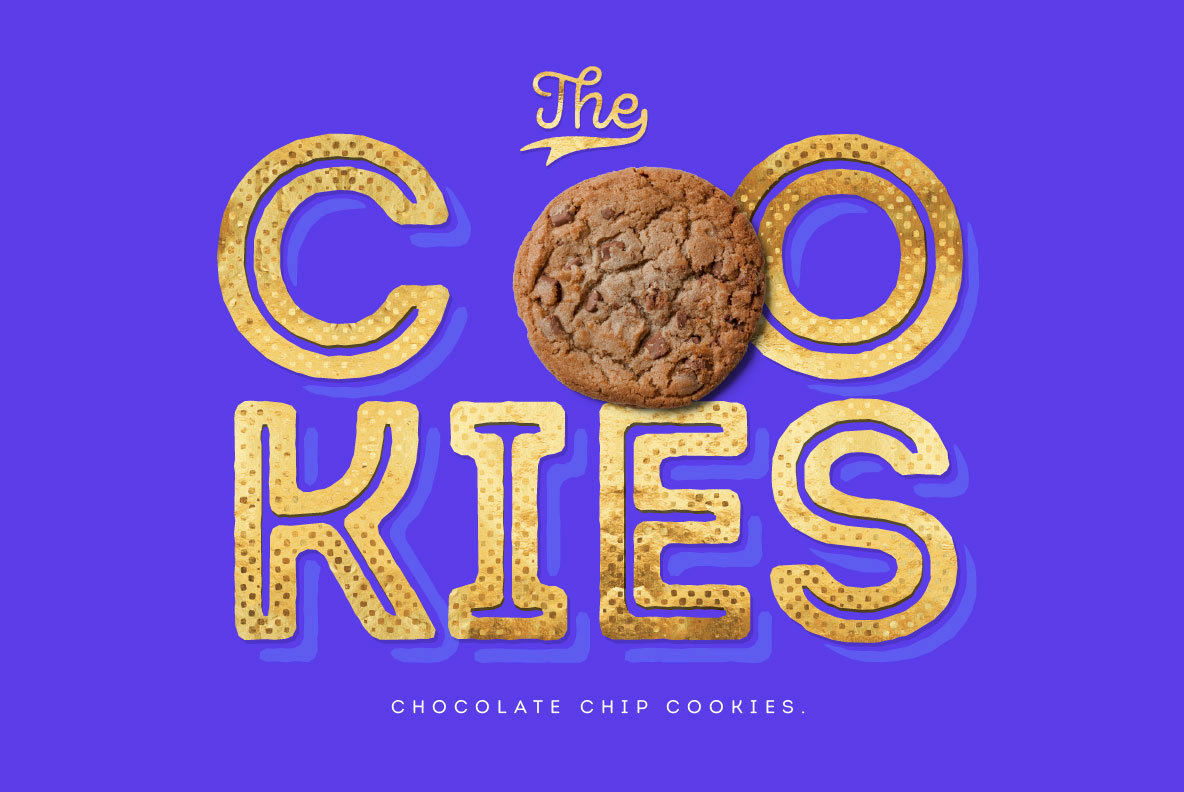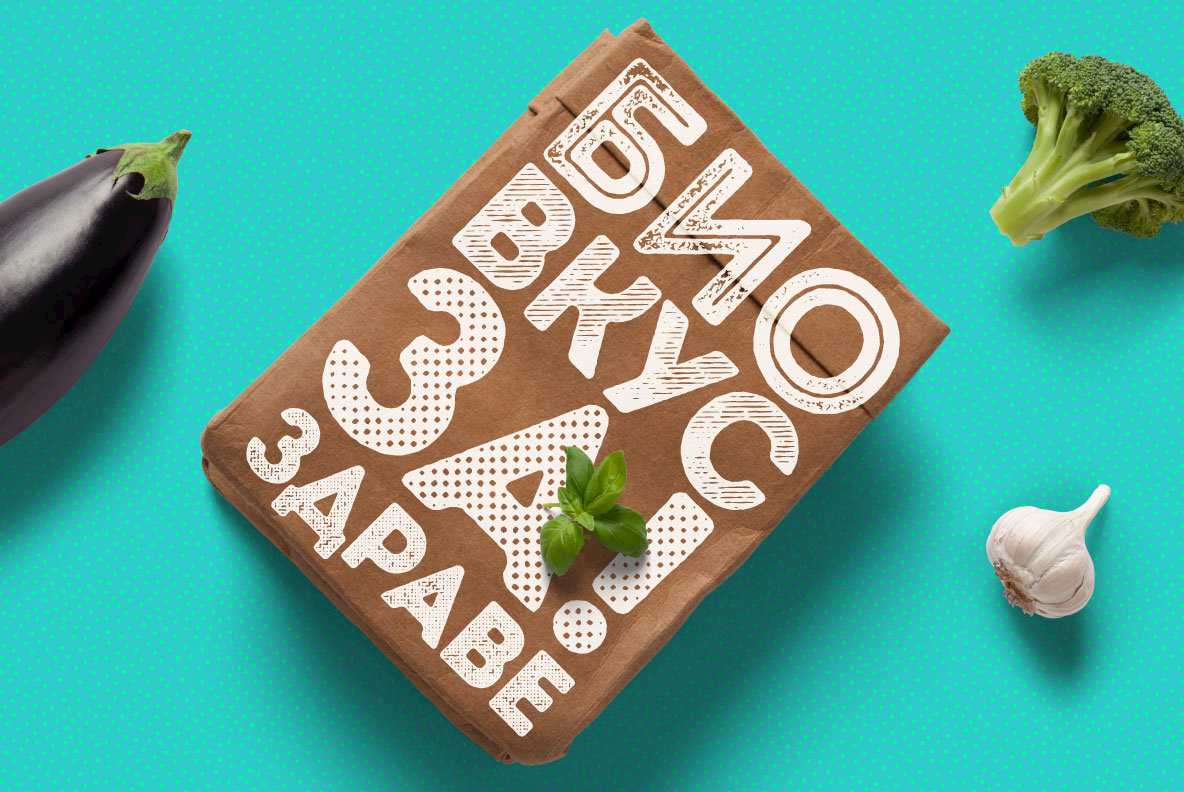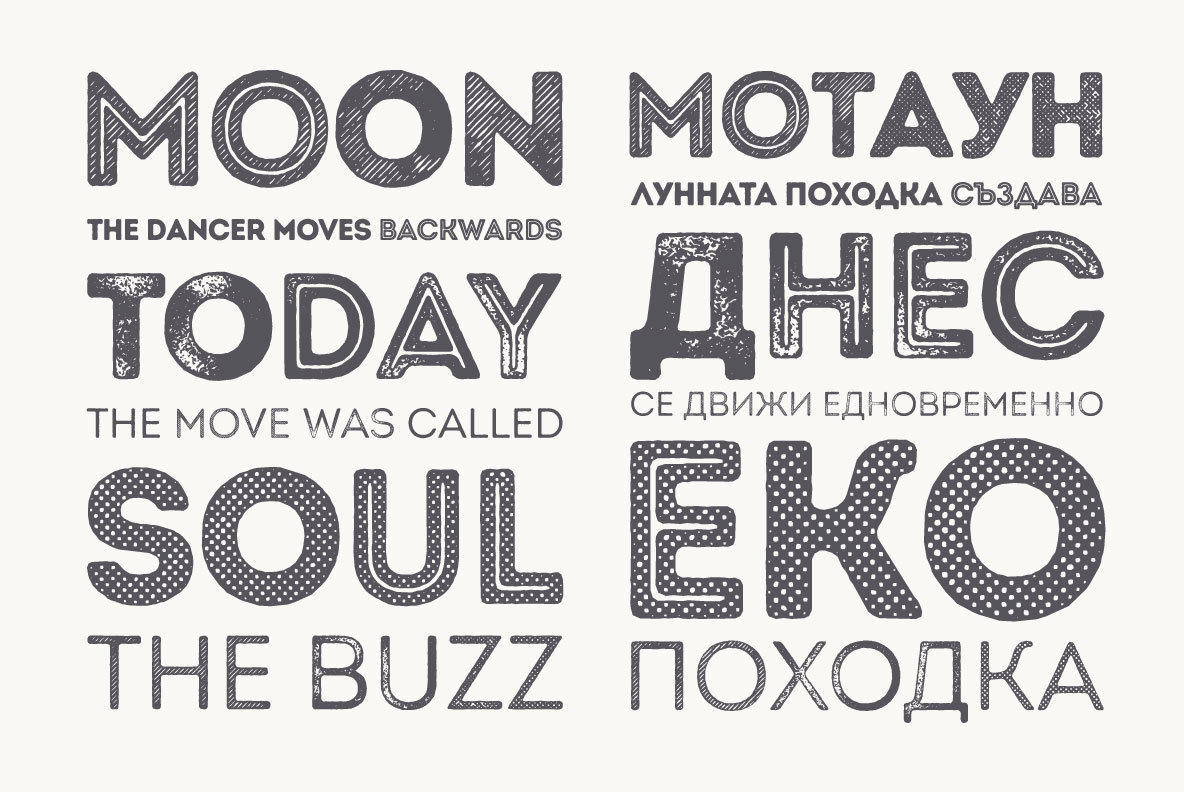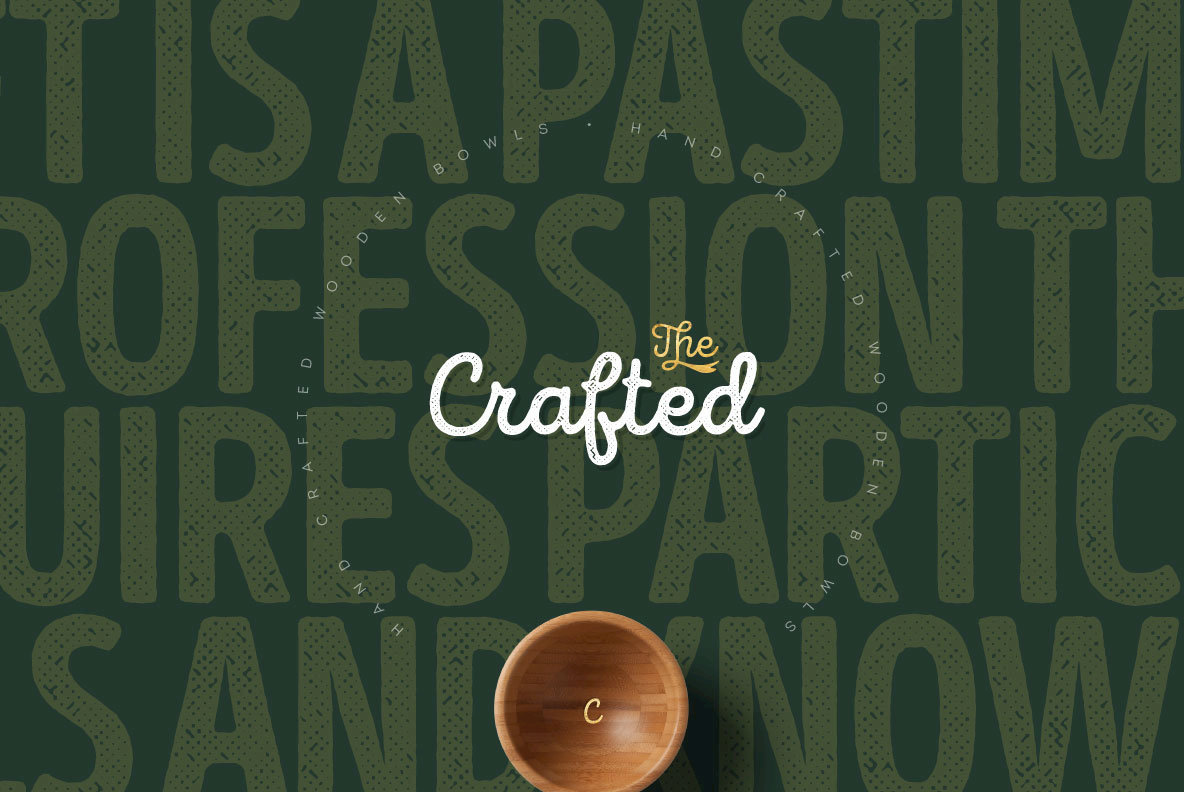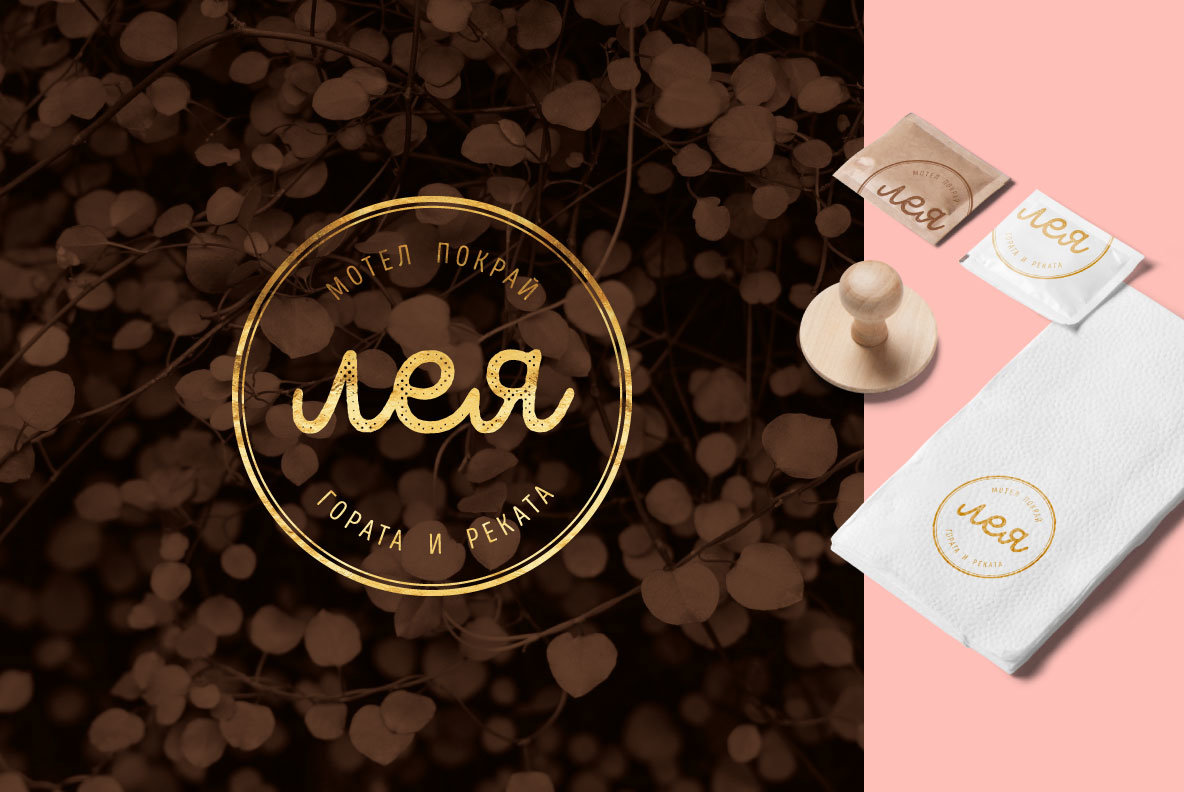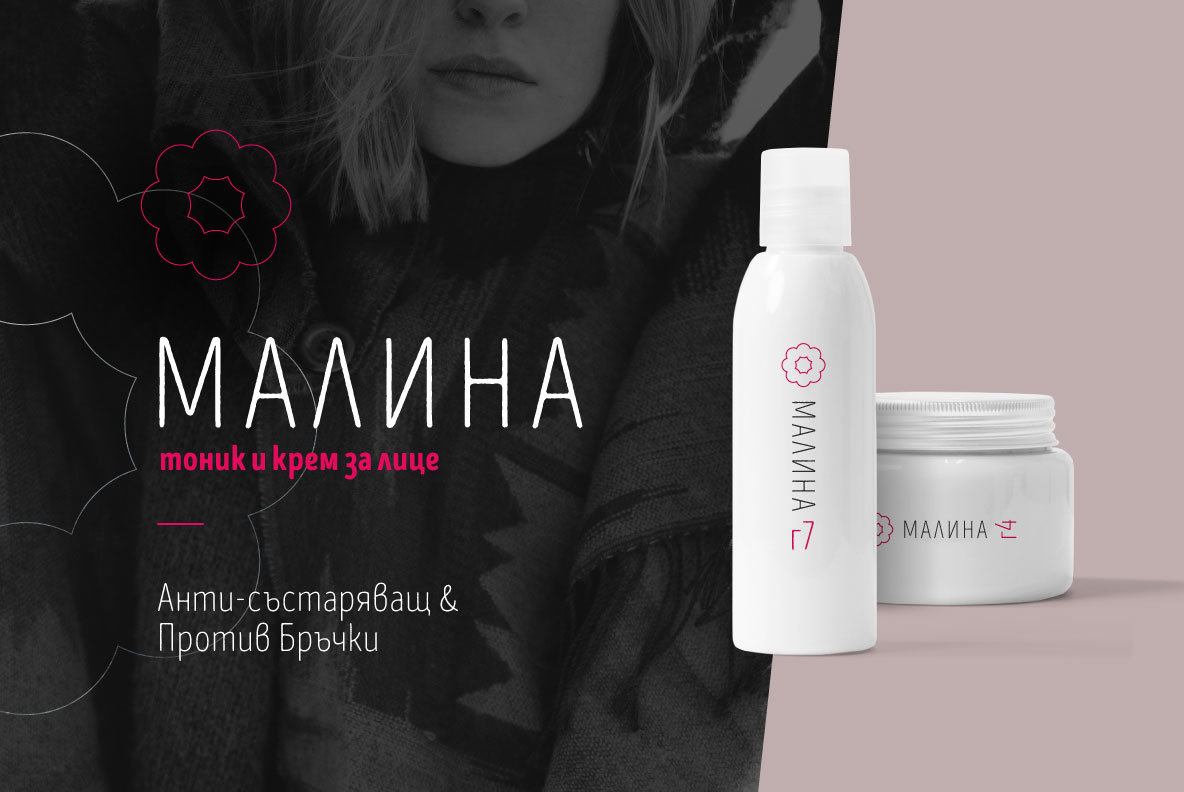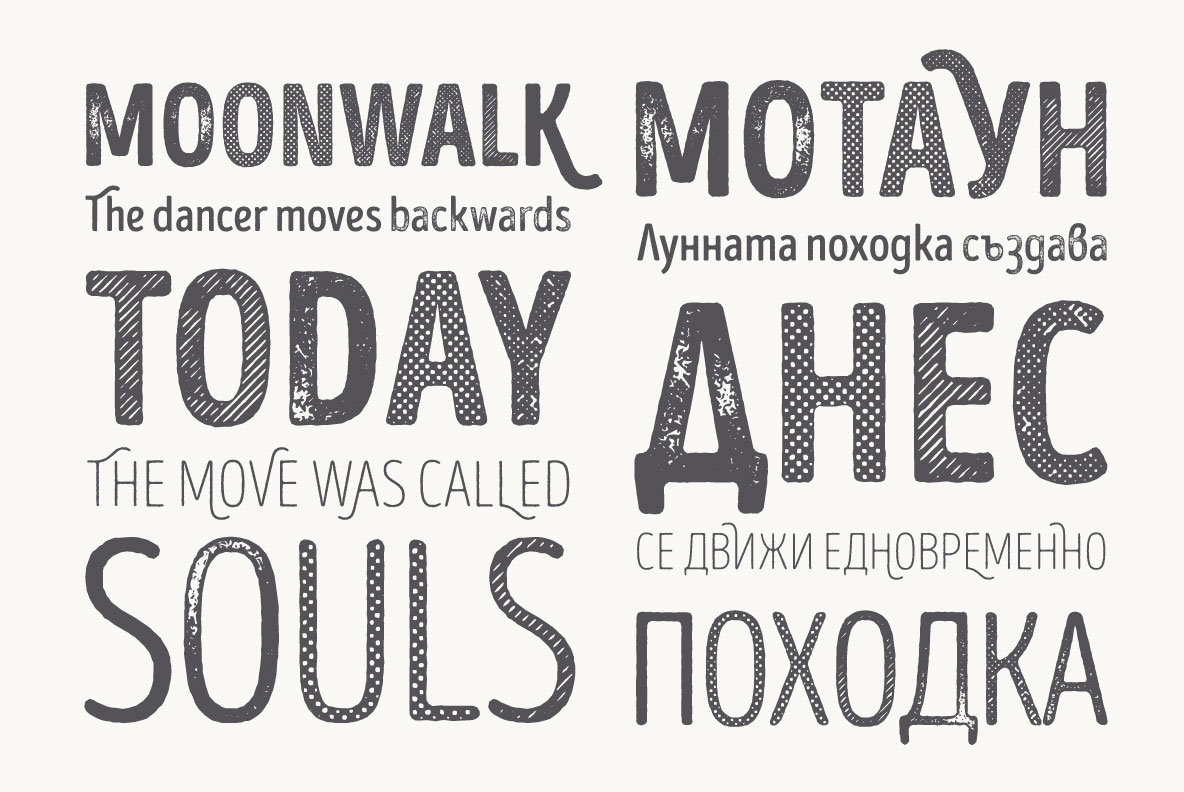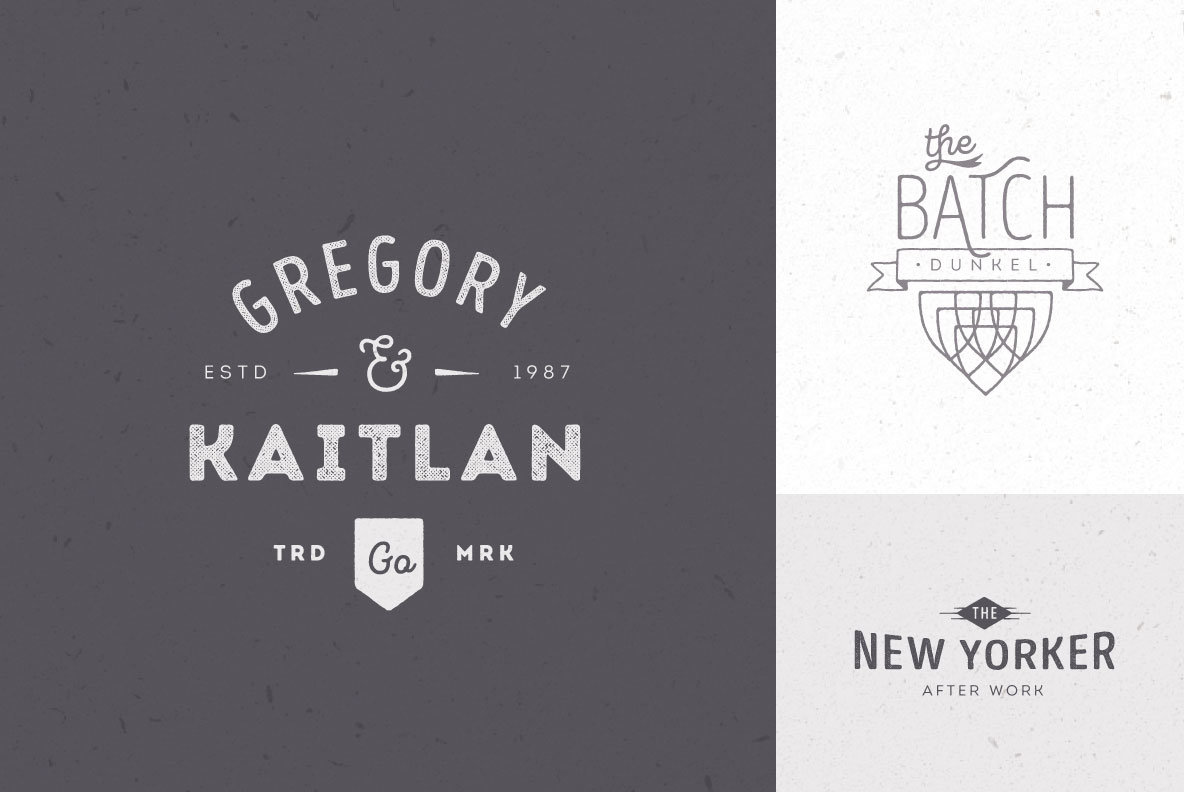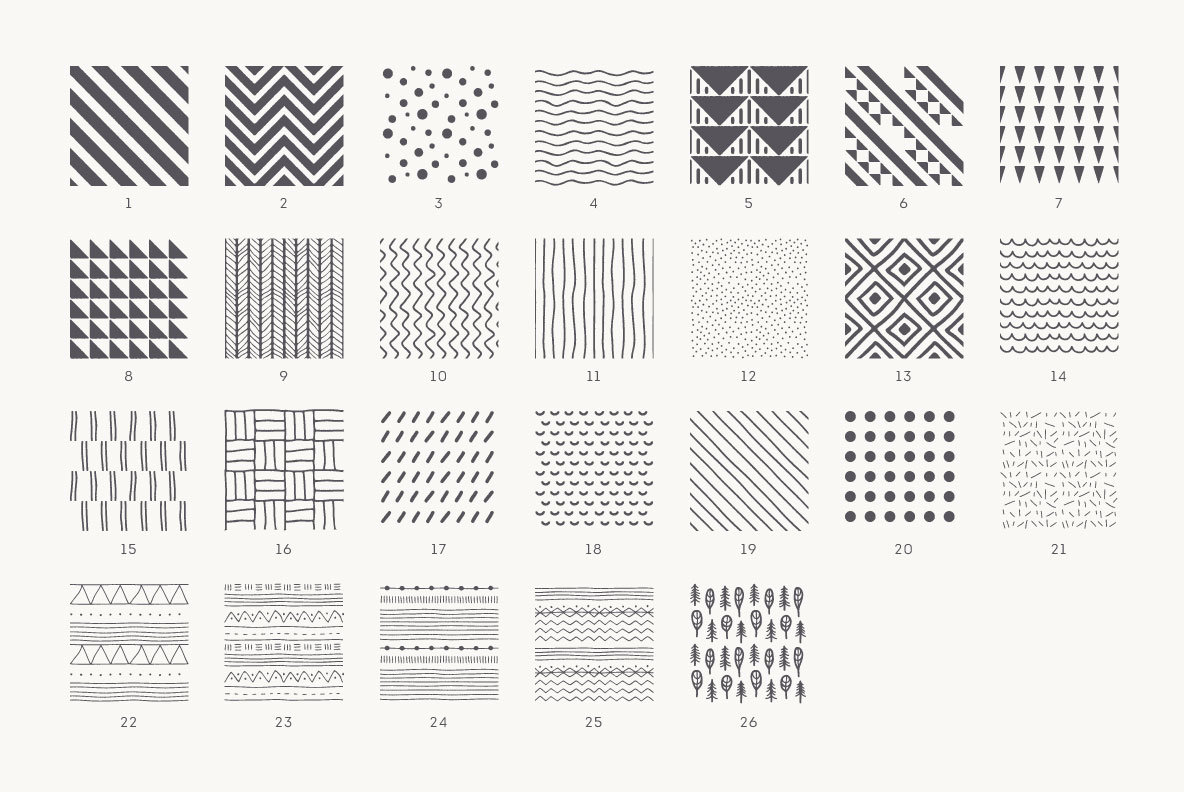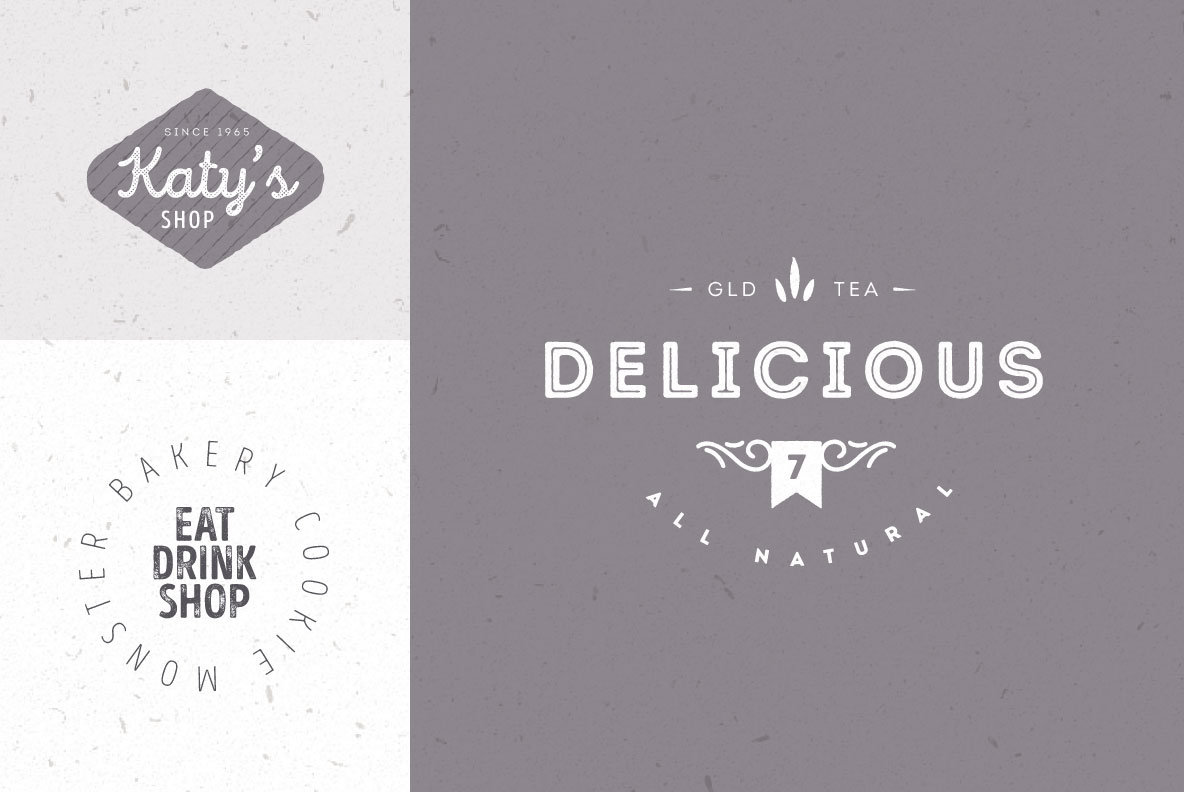
Intro Rust is one of the biggest packages on the market, including 214 fonts.
The font family is a rough version of the famous Intro and includes 4 sub-families – Intro Rust, Intro Script, Intro Head and Intro Goodies. For all types of design projects like print materials and web design, with just a little imagination you can watch them come alive.
Intro Rust fonts will make them more vivid than ever. You want to make a greeting card, a package design, or even a brand identity? Feel free to play with all the patterns and shapes, scripts or those cool fonts with the dots to clinch your next successful project.